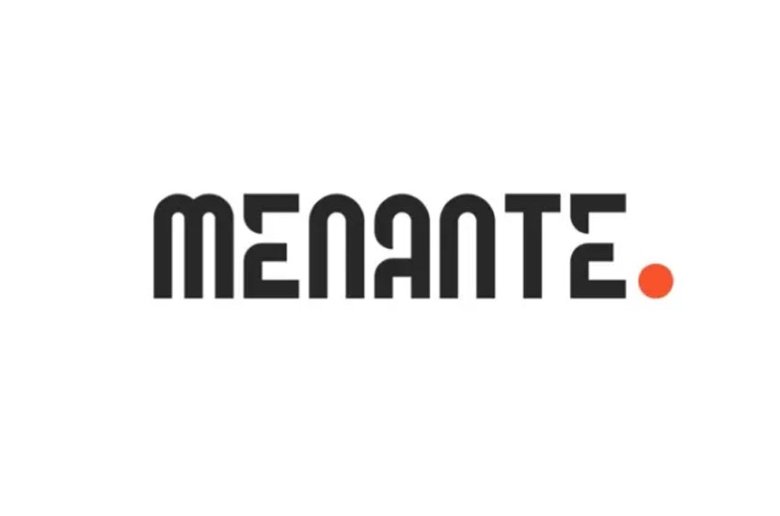
Menante Font
Menante is geometric sans serif font designed by Iwan Alwan that can easily be recognized from other fonts. It is different from other fonts due to its shapes and the fact that it has the variation of capital and small letters, variations. Being a versatile font family, Menante can accommodate ligatures, multiple language support, and stylistic alternatives to let you design outstanding, contemporary projects that may need that extra spot of innovation and adaptability.
When it comes to using type for logos, slogans, taglines, or elaborate artwork, Menante gives it a modern looking touch. This fonts are perfectly suitable for product logo, wedding card logo, clothing brand logo, Vintage design, and many other uses.
Menante Sans Serif Font